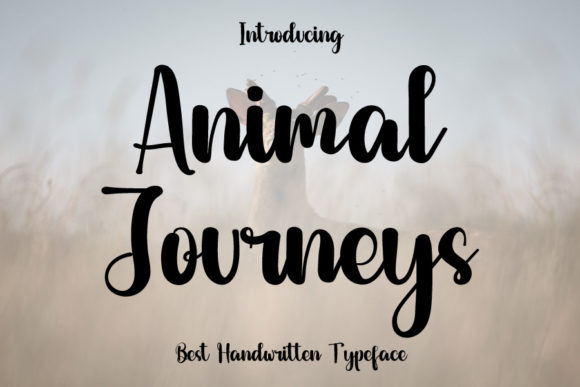
The Designer’s Delight: Animal Journeys Font
I’ll never forget the time I was working on a branding project for a new eco-friendly product line. I had spent hours perfecting the logo, but something was missing. The text just didn’t feel right. I tried font after font, but nothing seemed to capture the essence of the brand. That’s when I stumbled upon Animal Journeys, a lovely handwritten font that completely transformed my design. In this article, I’ll share my experience with Animal Journeys, its features, and how to make the most of it in your designs.
So, what makes Animal Journeys so special? Here are a few things I love about this font:
- ✨ Elegant and curvy lines that add a touch of sophistication to any design
- ✅ Perfect for product packaging, branding projects, magazine covers, social media, and wedding designs
- 🎨 Beautifully crafted to evoke an emotional response from your audience
Of course, no font is perfect, and Animal Journeys has a few quirks:
- 🤔 Some characters may not work well at very small font sizes
The Story Behind Animal Journeys
Animal Journeys was designed by a talented typographer who wanted to create a font that would evoke a sense of wonder and curiosity. Inspired by the natural world, this font features elegant lines and curvy shapes that are sure to capture your audience’s attention. Whether you’re designing for print or digital media, Animal Journeys is the perfect choice.
| Is Animal Journeys suitable for body text? | While Animal Journeys is a beautiful font, it’s best suited for headlines and titles. For body text, you may want to choose a more legible font. |